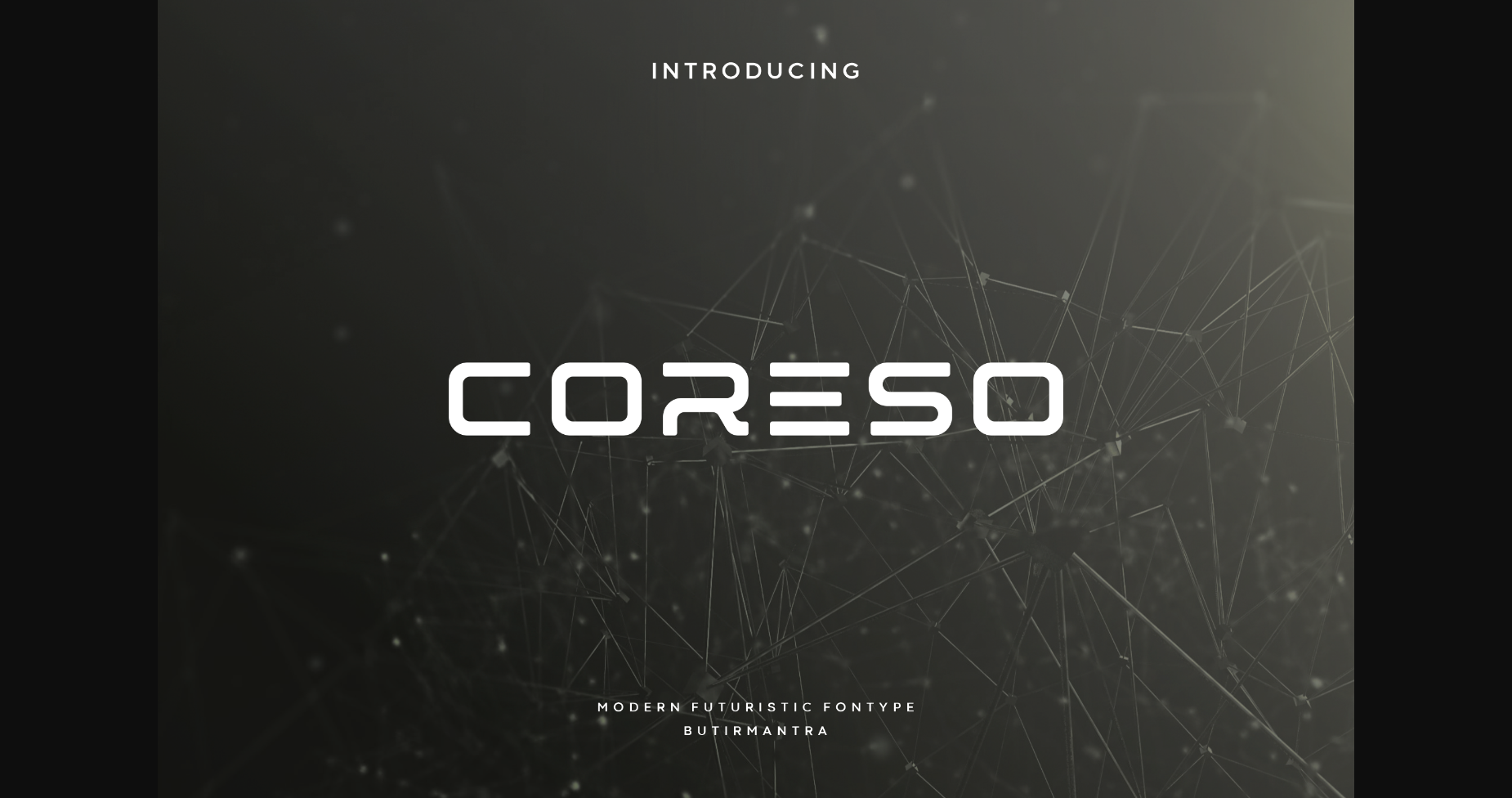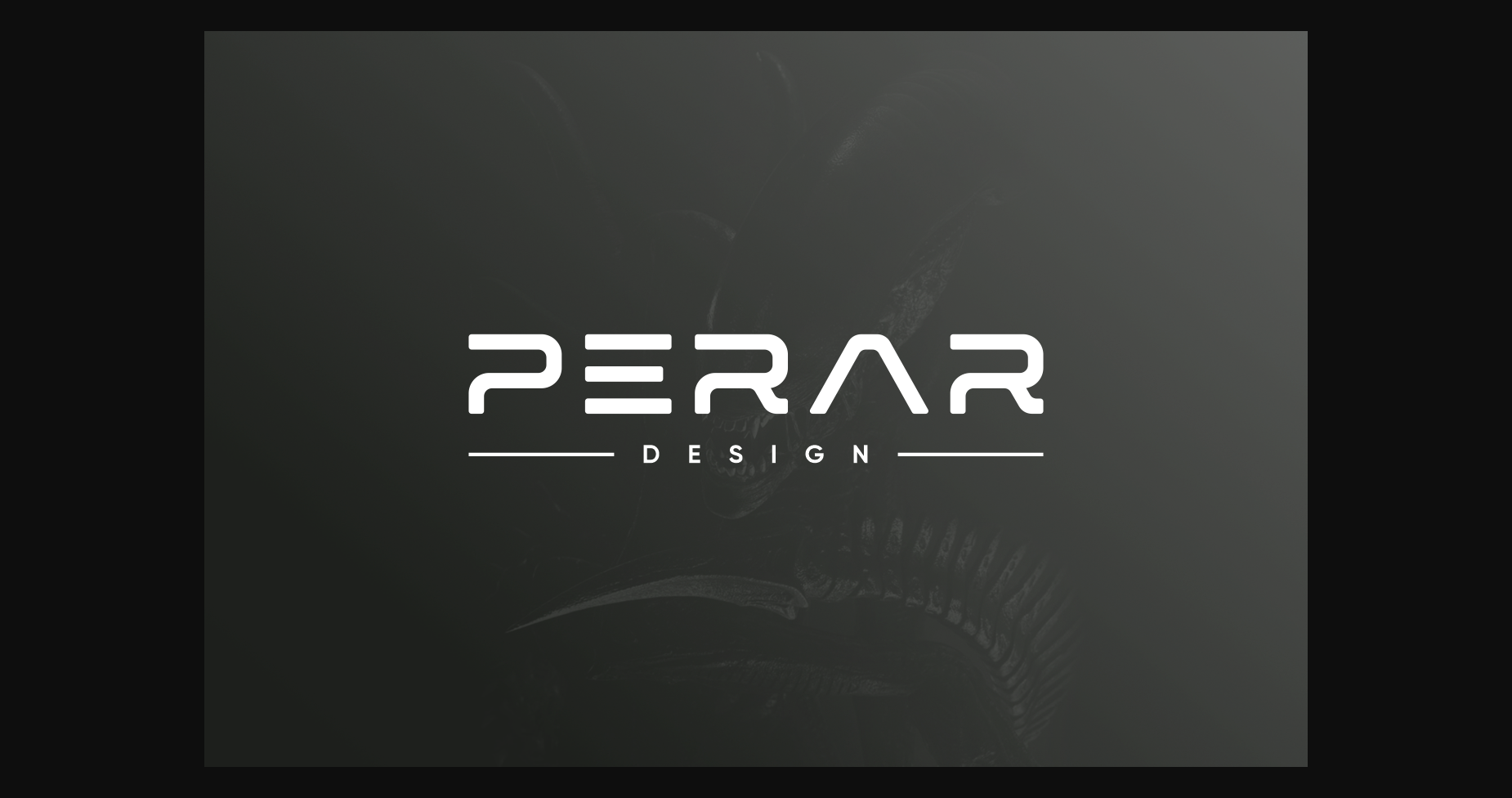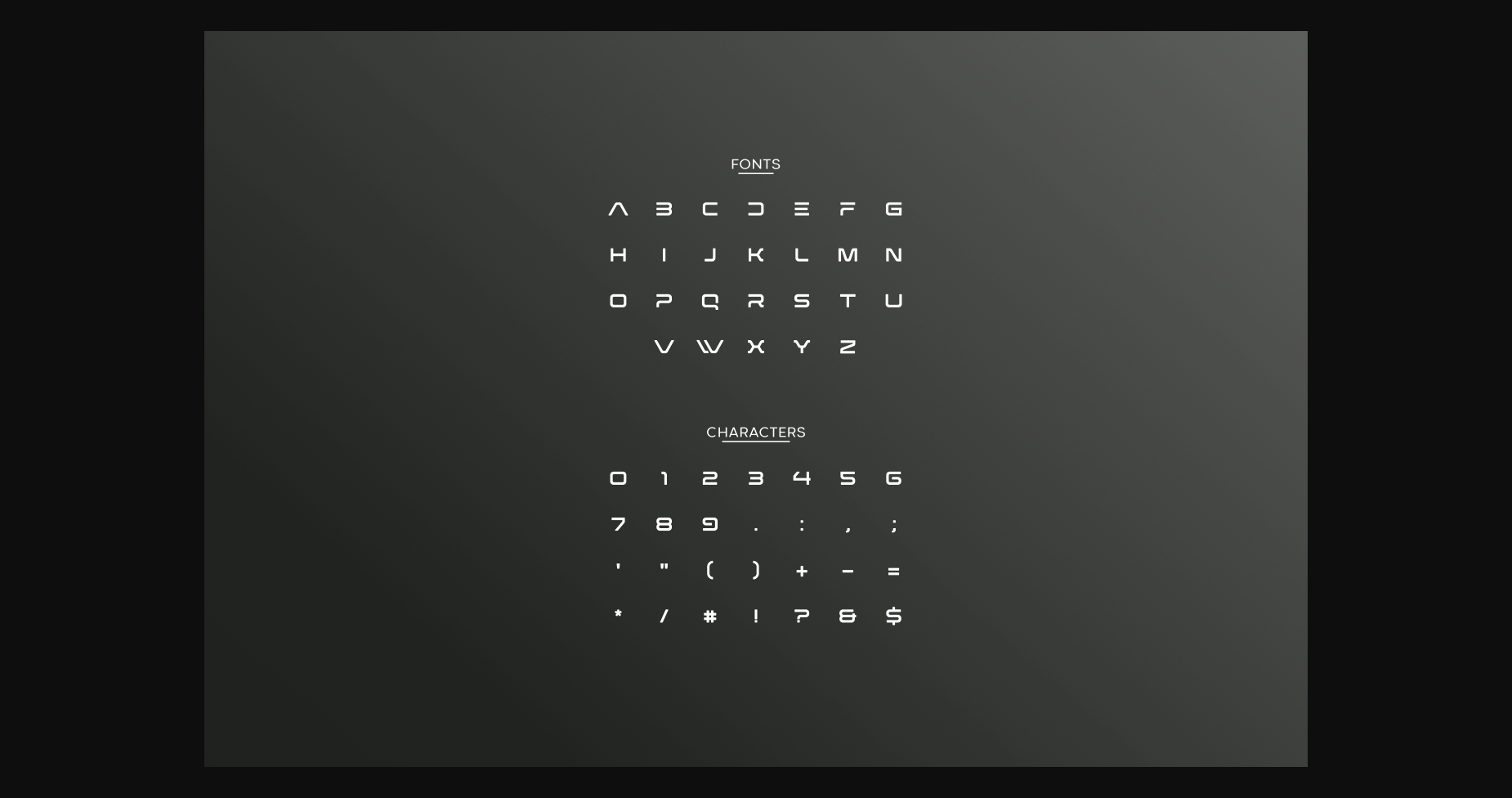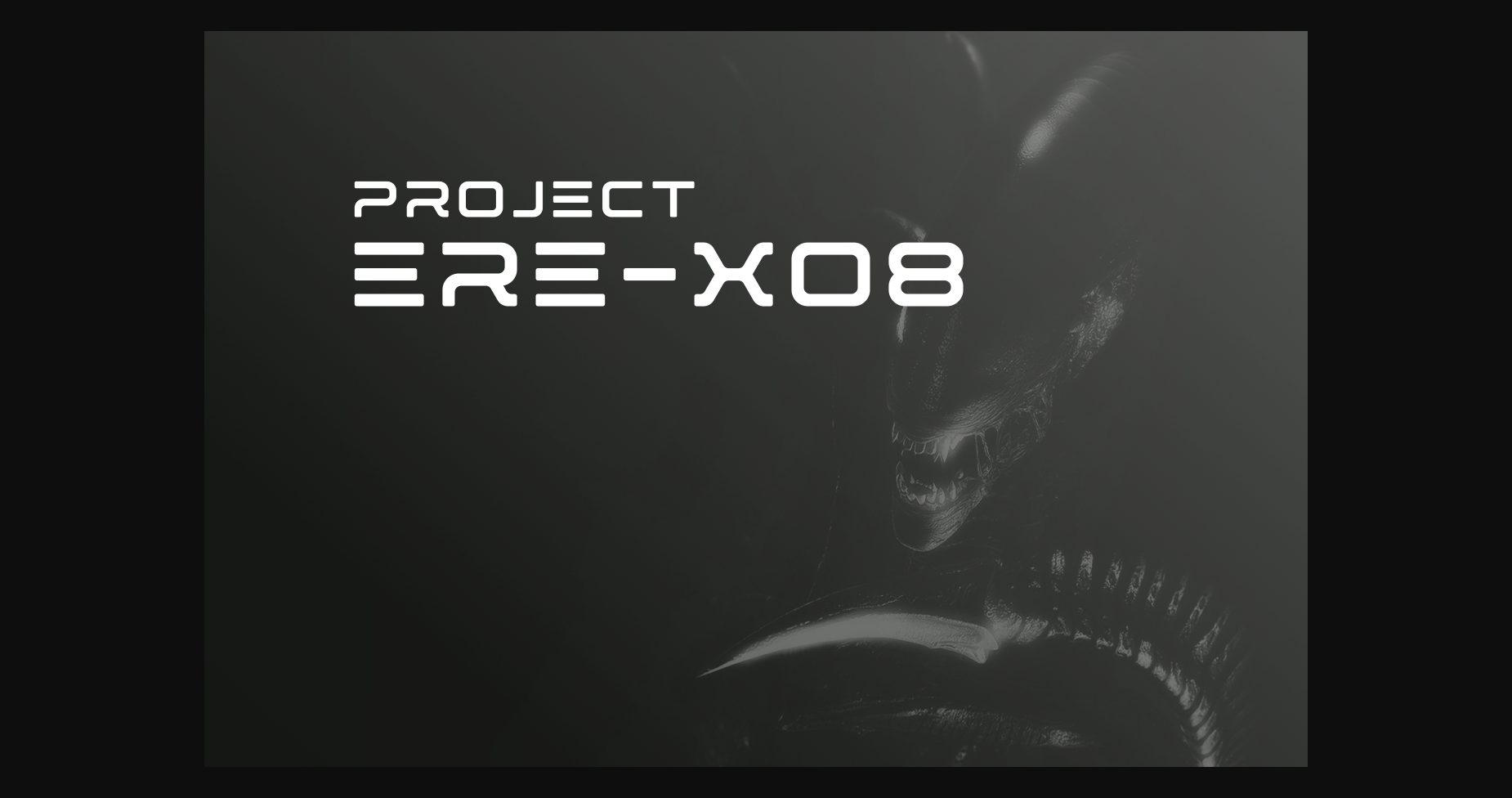
About Coreso Font
Coreso is a modern, elegant, and futuristic sans-serif font. This font would be ideal for web design, business cards, or just about anything else that requires a unique touch.